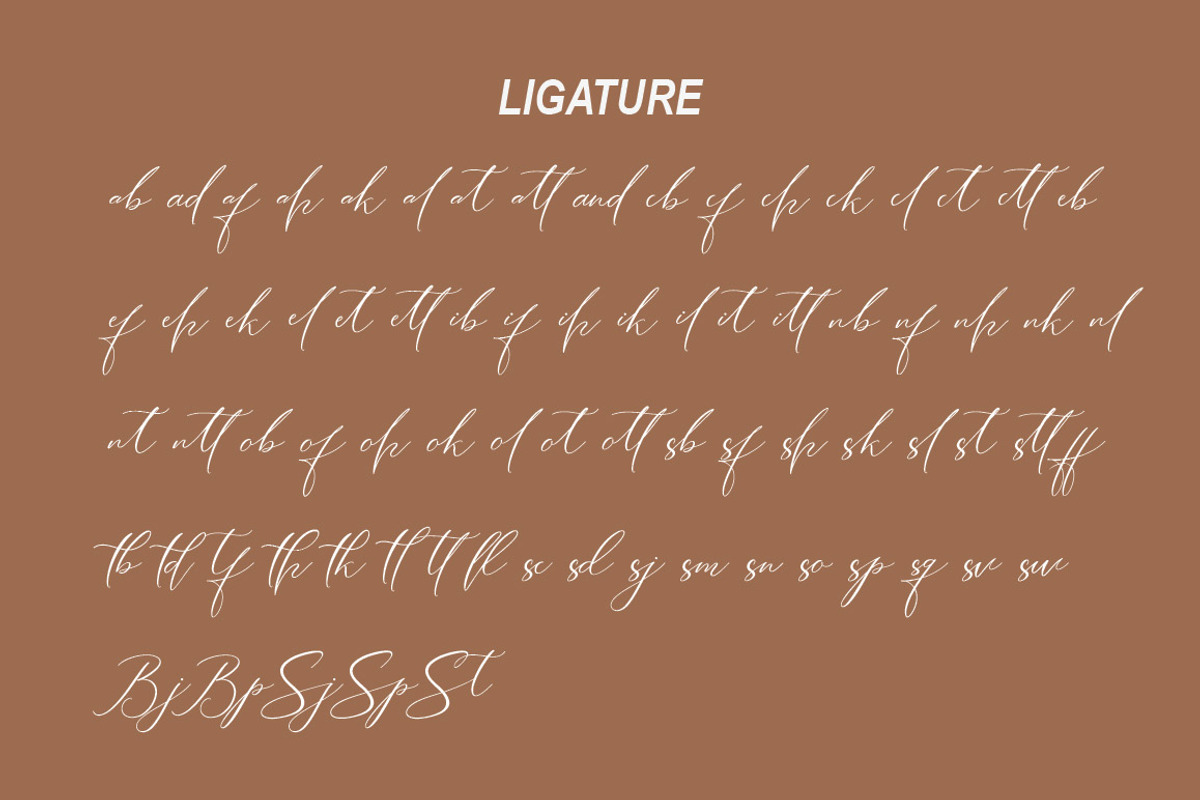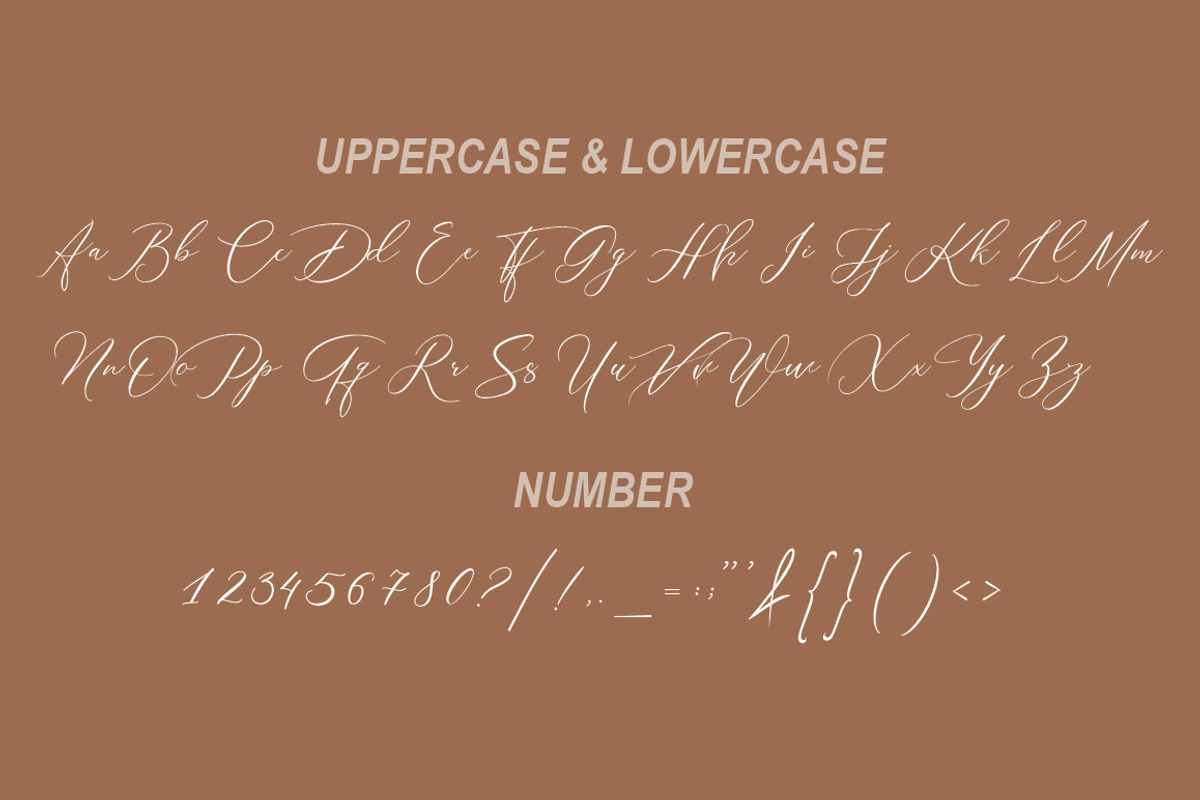
Wollshine
Wollshine a work that is purely a result of handwriting, has a natural characteristic. this is perfect for invitations, signatures, blogs, social media, business cards, product brands.
Simplified features :
- 76 Gorgeous ligatures
- Lowercase beginning & ending swashes